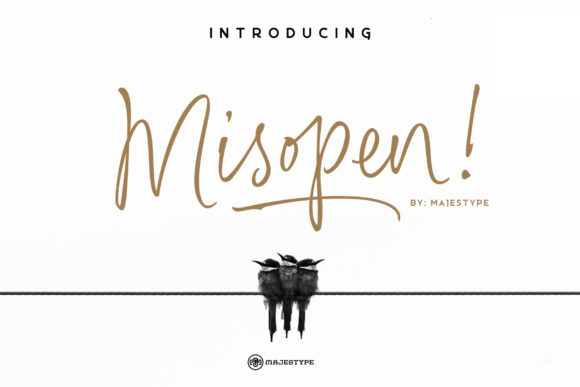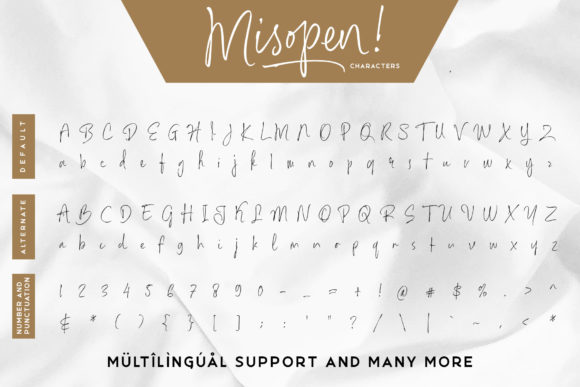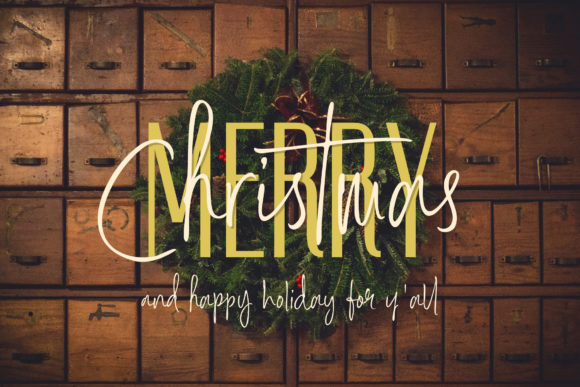
About Misopen Font
Misopen is a lovely script font featuring charming, playful characters that seem to dance along the baseline. Add this font to your most creative ideas, and notice how it makes them stand out!